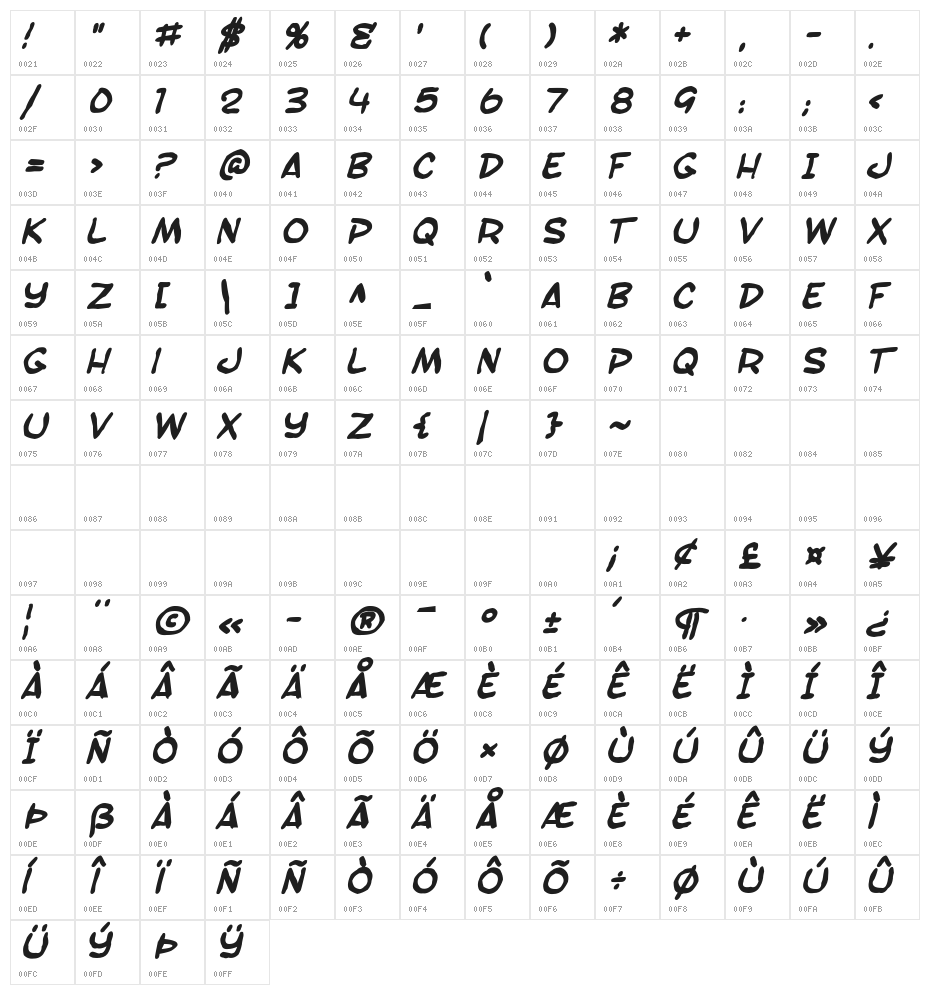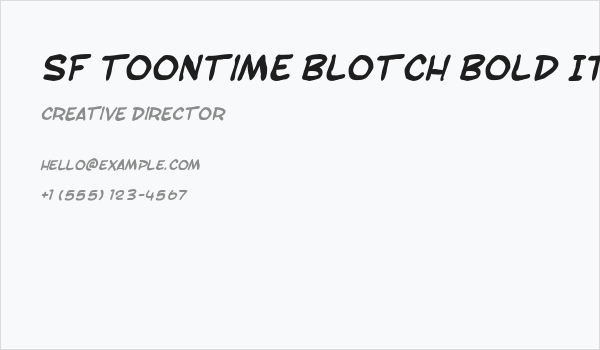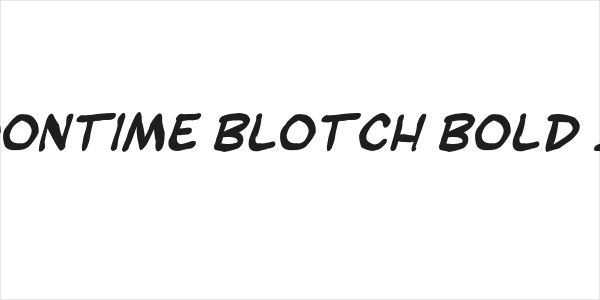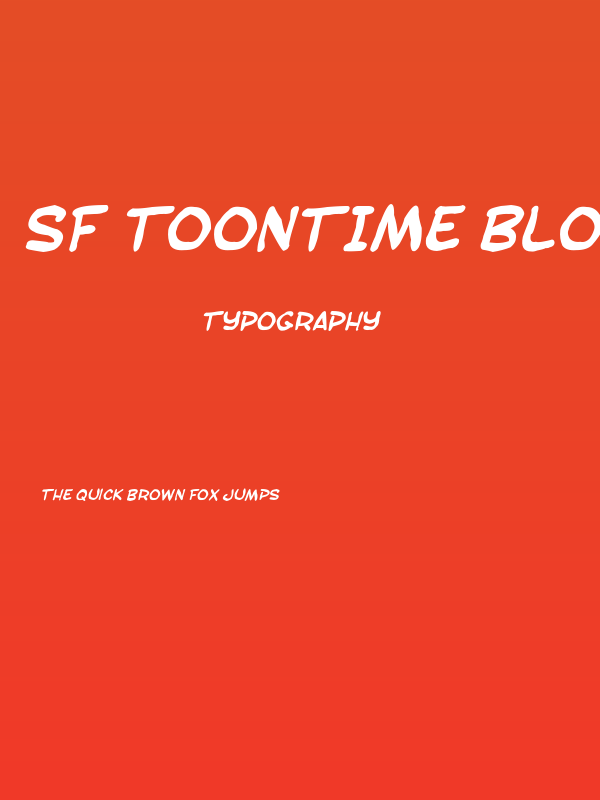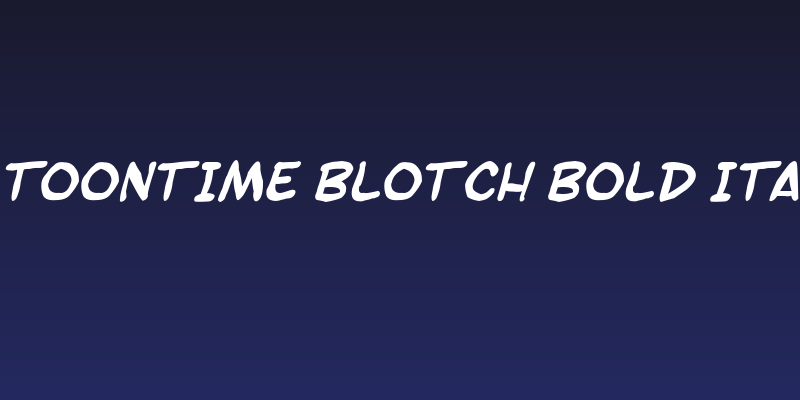
SF Toontime Blotch Bold Italic Font
SF Toontime Blotch Bold Italic Description
This playful and bold font features a handwritten style with a cartoonish flair, characterized by its thick, rounded strokes and dynamic, flowing curves. The letters are slightly slanted, adding to the casual and informal appearance. The font maintains a consistent weight throughout, providing a uniform look that is both approachable and energetic. Its boldness ensures high visibility, making it suitable for eye-catching designs. The spacing between characters is relatively tight, enhancing the compact and cohesive feel of the text.
| Proposed Projects | Ideal for children's books, comic strips, playful branding, and casual invitations. |